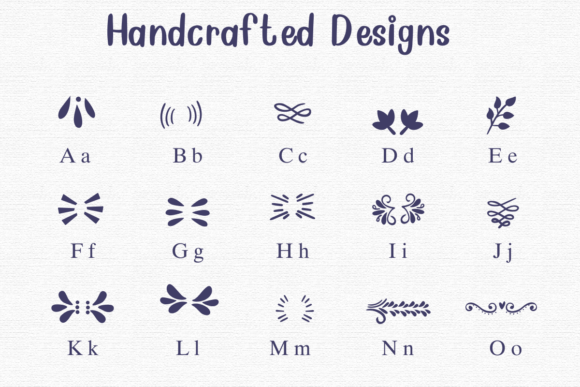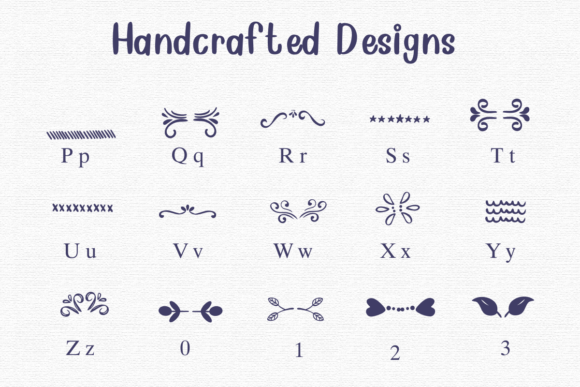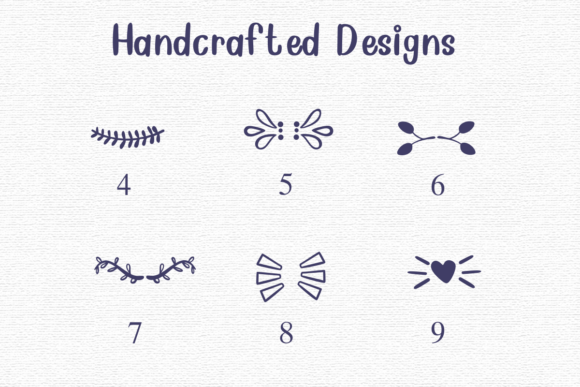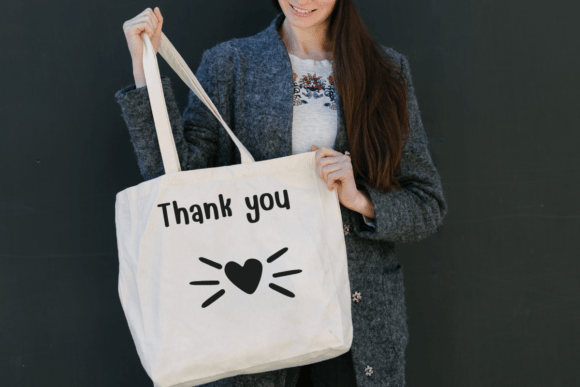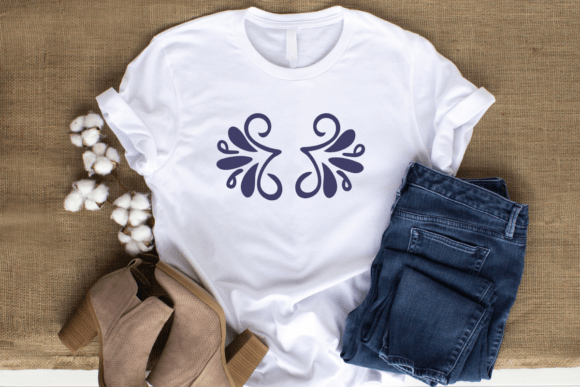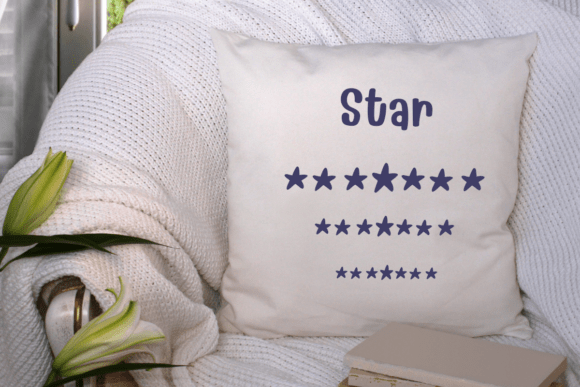
Introducing Handcrafted Designs Font: Elevate Your Projects with Elegant Flourishes
Are you a designer or crafter looking for a unique and elegant font to add a touch of sophistication to your projects? Look no further than Handcrafted Designs, a beautiful decorative dingbat font that features intricate flourishes, swirls, borders, and botanical motifs. In this article, we’ll dive into the world of Handcrafted Designs and explore how this stunning font can elevate your wedding invitations, cards, logos, and vintage-inspired projects.
The Beauty of Handcrafted Designs
Handcrafted Designs is a meticulously crafted font that exudes elegance and refinement. Its decorative dingbat style features a wide range of flourishes, swirls, borders, and botanical motifs that are perfect for adding a touch of handcrafted charm to any project. The font’s intricate details and ornate designs make it ideal for creating stunning wedding invitations, greeting cards, and other special occasion materials.
Wedding planning is an exciting and romantic time, and the right font can make all the difference in creating beautiful and memorable invitations and cards. Handcrafted Designs is the perfect choice for couples looking to add a touch of elegance and sophistication to their wedding stationery. The font’s delicate flourishes and botanical motifs evoke a sense of nostalgia and romance, making it ideal for wedding invitations, save-the-date cards, and thank-you notes.
Elevate Your Logos and Branding
Handcrafted Designs is not just limited to wedding invitations and cards; it’s also an excellent choice for logos and branding. The font’s unique and elegant design makes it perfect for businesses looking to create a distinctive and memorable brand identity. Whether you’re a boutique owner, artist, or crafty entrepreneur, Handcrafted Designs can help you create a logo that stands out from the crowd.
Vintage-Inspired Projects Made Easy
For crafters and designers who love vintage-inspired projects, Handcrafted Designs is a dream come true. The font’s ornate details and classic motifs make it easy to create stunning vintage-style crafts, such as paper crafts, scrapbooking, and mixed media art. With Handcrafted Designs, you can add a touch of nostalgia and charm to your projects and create something truly unique and eye-catching.
Key Features of Handcrafted Designs
- Decorative dingbat font: Handcrafted Designs features a wide range of decorative dingbats, including flourishes, swirls, borders, and botanical motifs.
- Elegant and refined: The font’s intricate details and ornate designs make it perfect for creating elegant and sophisticated projects.
- Perfect for wedding invitations and cards: Handcrafted Designs is ideal for creating stunning wedding invitations, save-the-date cards, and thank-you notes.
- Great for logos and branding: The font’s unique and elegant design makes it perfect for businesses looking to create a distinctive and memorable brand identity.
- Vintage-inspired projects made easy: Handcrafted Designs makes it easy to create stunning vintage-style crafts, such as paper crafts, scrapbooking, and mixed media art.
Tips for Using Handcrafted Designs
To get the most out of Handcrafted Designs, here are a few tips:
- Experiment with different sizes and colors: Handcrafted Designs looks great in a variety of sizes and colors, so don’t be afraid to experiment and find the perfect combination for your project.
- Mix and match with other fonts: Handcrafted Designs pairs beautifully with other fonts, so try mixing and matching it with your favorite fonts to create a unique and eye-catching look.
- Use it for headlines and titles: Handcrafted Designs is perfect for headlines and titles, where its elegant and refined design can really shine.
In conclusion, Handcrafted Designs is a stunning decorative dingbat font that is perfect for designers and crafters looking to add a touch of elegance and sophistication to their projects. With its intricate flourishes, swirls, borders, and botanical motifs, Handcrafted Designs is ideal for wedding invitations, cards, logos, and vintage-inspired projects. So why wait? Try Handcrafted Designs today and see how it can elevate your projects to the next level!